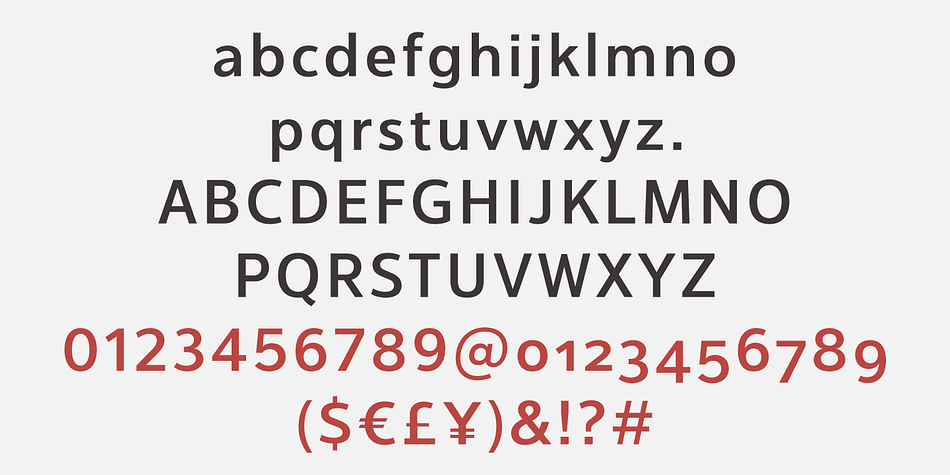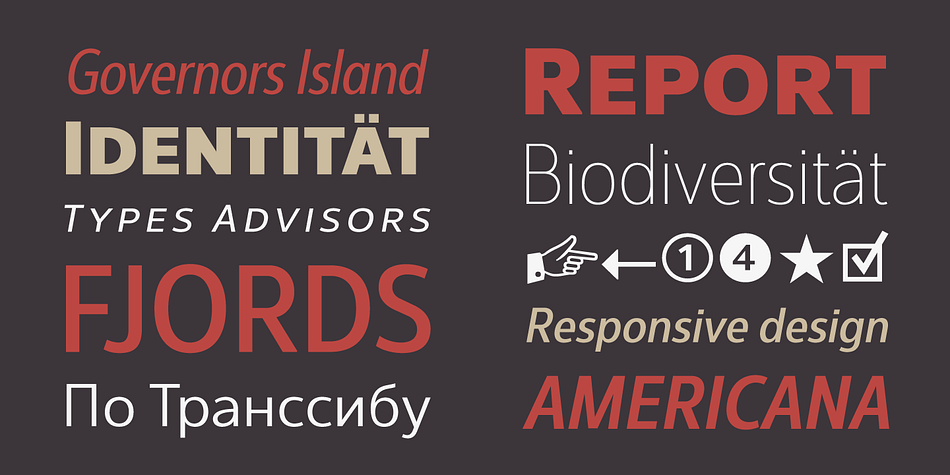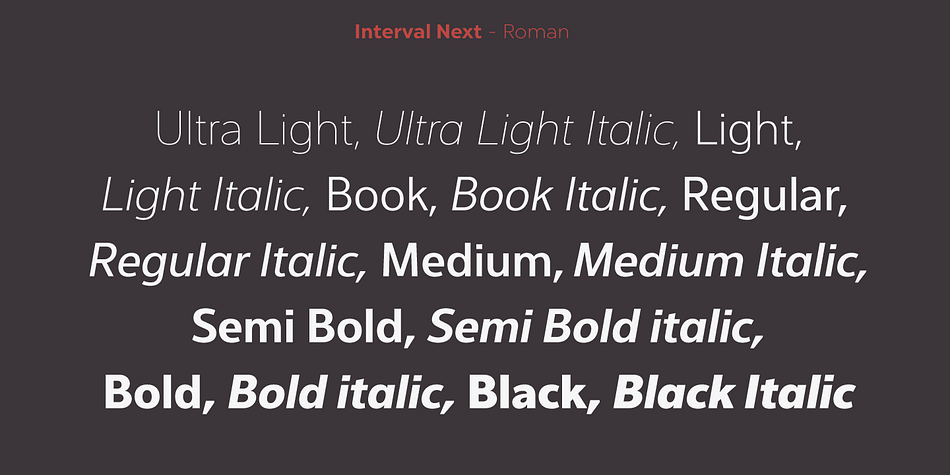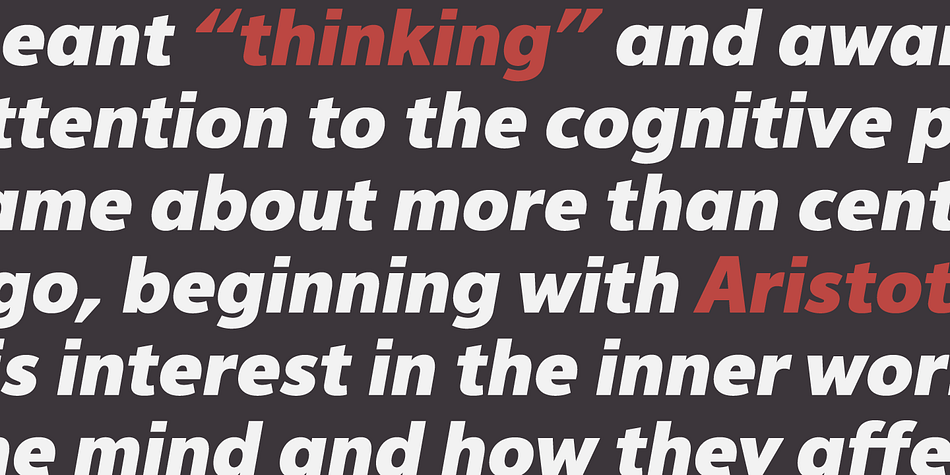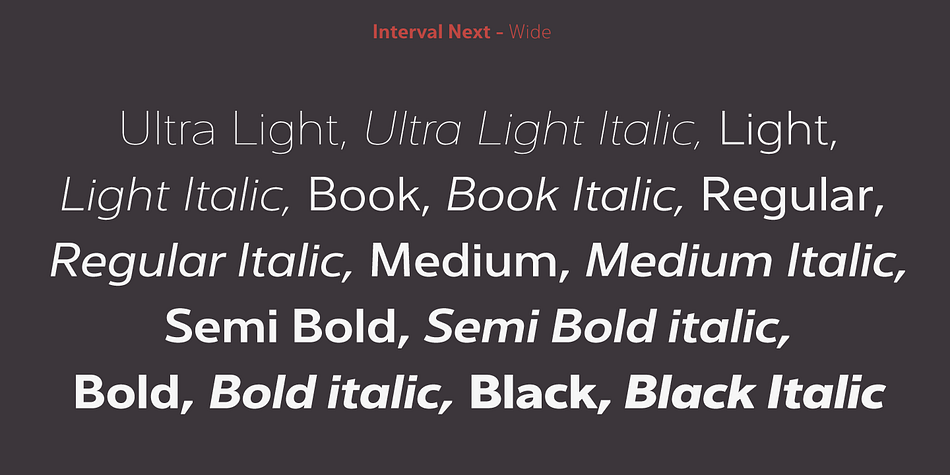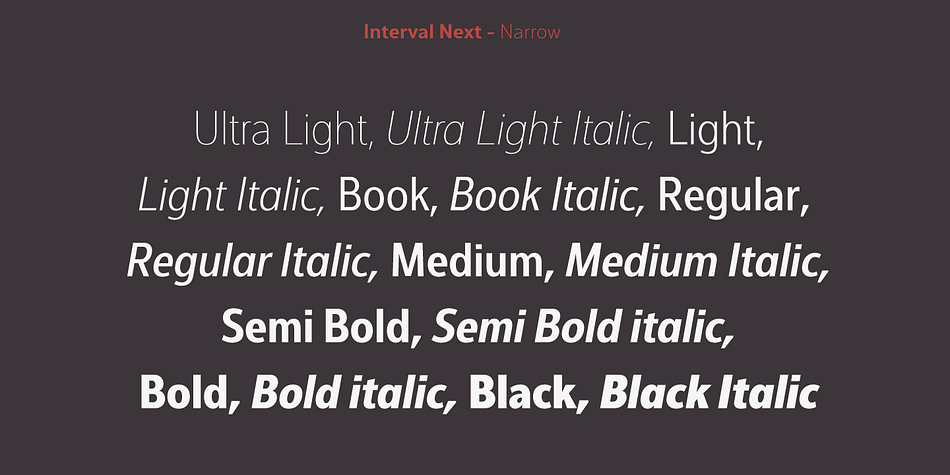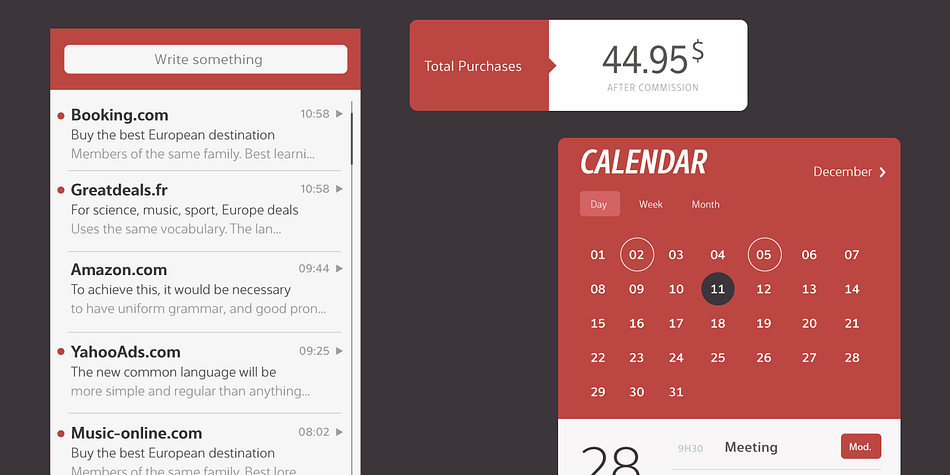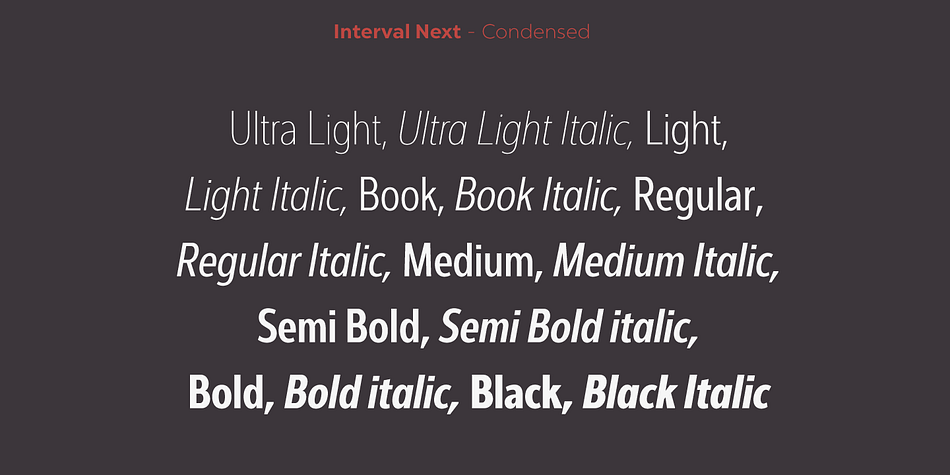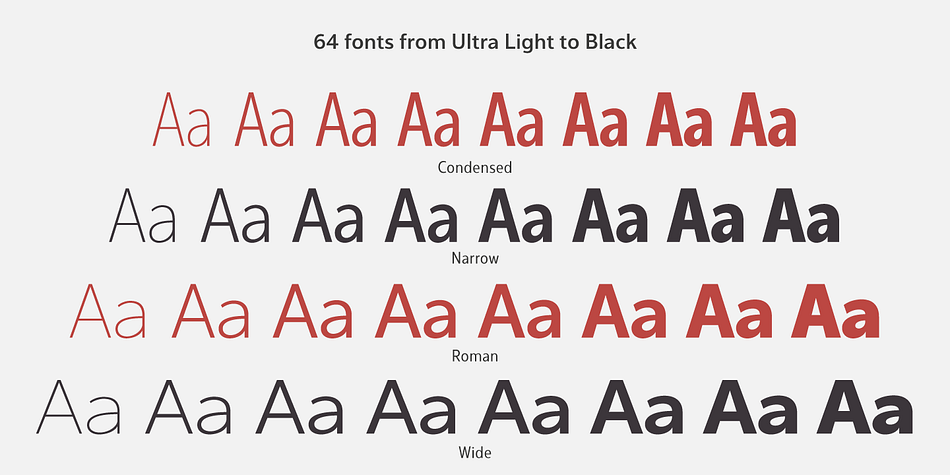
Designed by Olivier Gourvat, Interval Next is a sans serif font family. This typeface has sixty-four styles and was published by Mostardesign.
Interval Next is a modern sans serif font family that is the successor of the successful Interval Sans Pro. Designed by Olivier Gourvat, Interval Next typeface consists of 16 fonts in 8 weights — Ultra Light, Light, Book, Regular, Medium, Semi Bold, Bold, Black— and has 4 styles. This super family combines a humanist mind with its contrasted shapes and a modern look with its open counters. With Its four versatile styles (Condensed, Narrow, Roman and Wide) Interval Next have a creative palette able to meet the modern typographic demands.
It’s OpenType features will provide you almost unlimited multilingual support as well as small caps, case sensitive forms, proportional and tabular figures, slashed zero, numerators, superscripts, denominators, scientific inferiors, circled figures, subscript, ordinals, fractions, arrows and f-ligatures. Also extremely functional for professionnal editorial design, Interval Next has a pro kerning and would be extremely suitable for mobile applications, e-books, web sites, headlines, posters, signage and many more.
Interval Next covers a large spectrum of languages such as West European, East European and the Cyrillic.